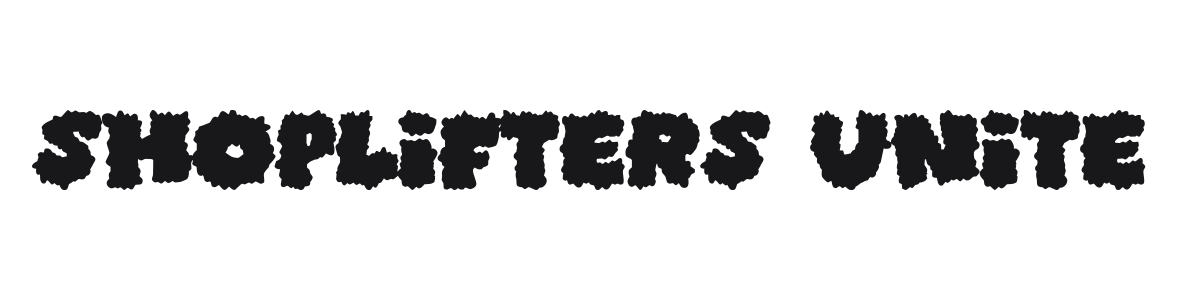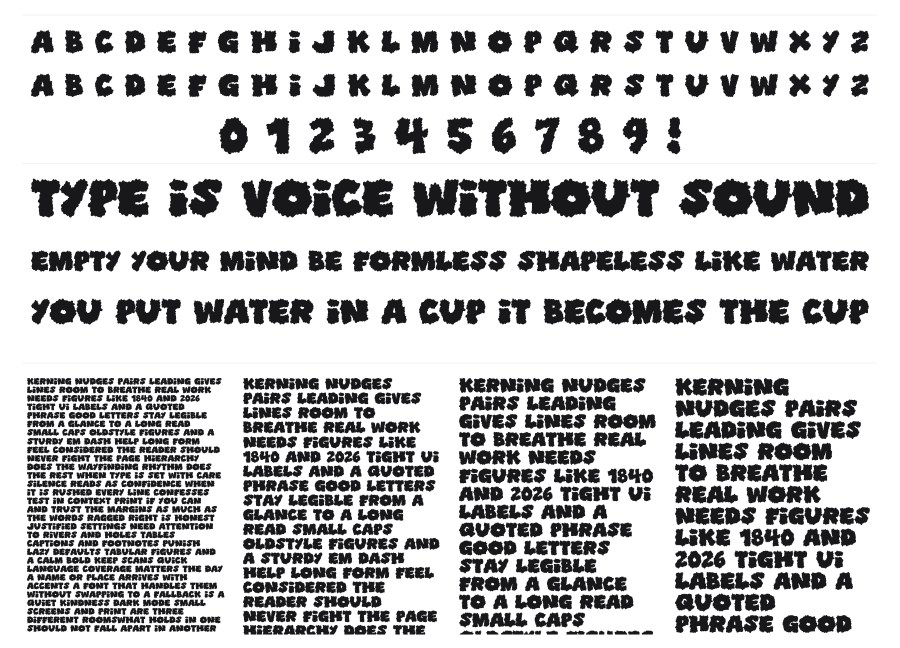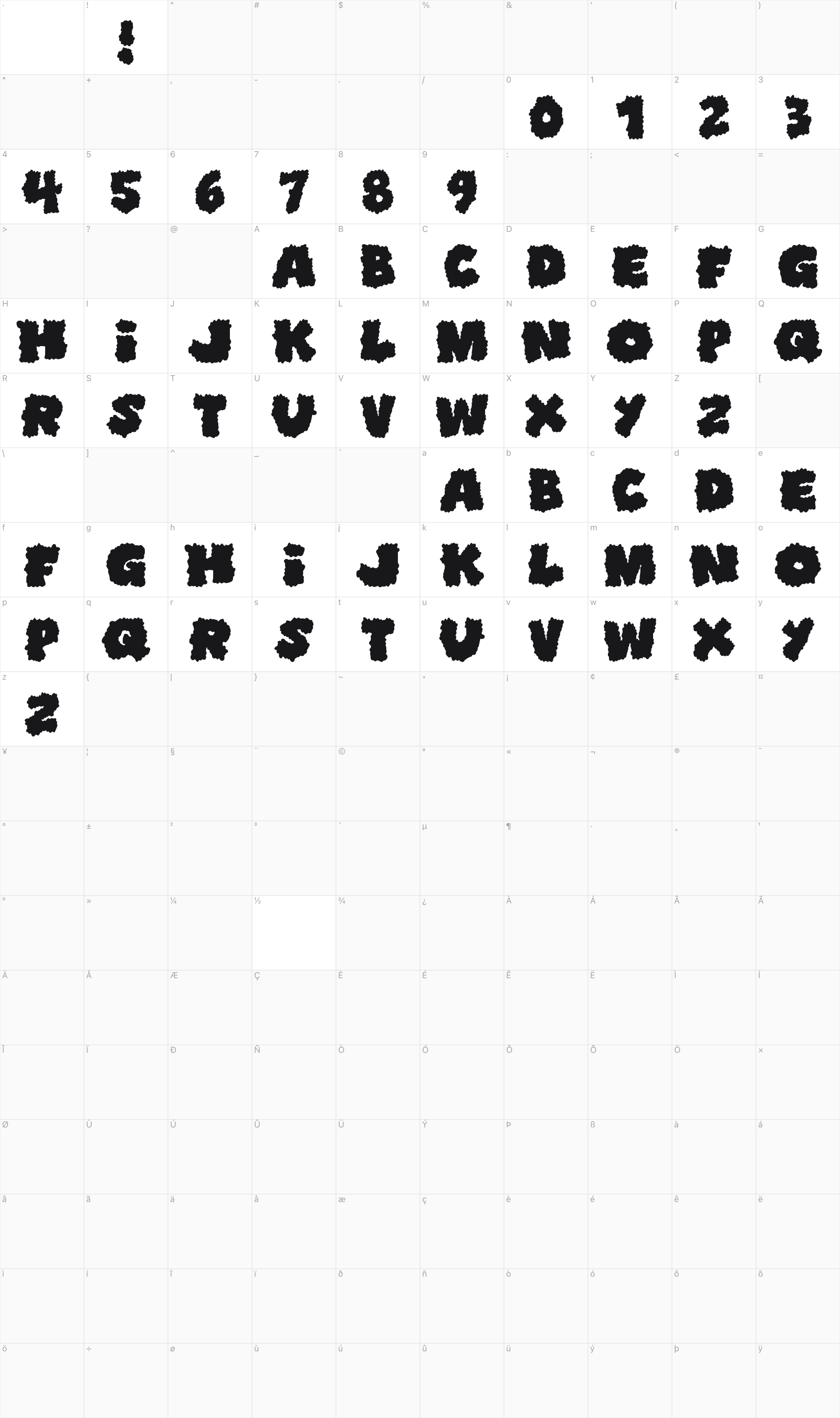
Shoplifters Unite
Shoplifters Unite is a heavy distressed display font by Jakob Fischer (PizzaDude) built on a chunky, compact grotesque base that has been consumed by rough, bumpy erosion along every edge. The irregular cloud-like texture reads as grungy and rebellious, somewhere between melted rubber and organic decay. It has strong presence at large sizes for posters, band logos, and anything that needs an underground or punk attitude.